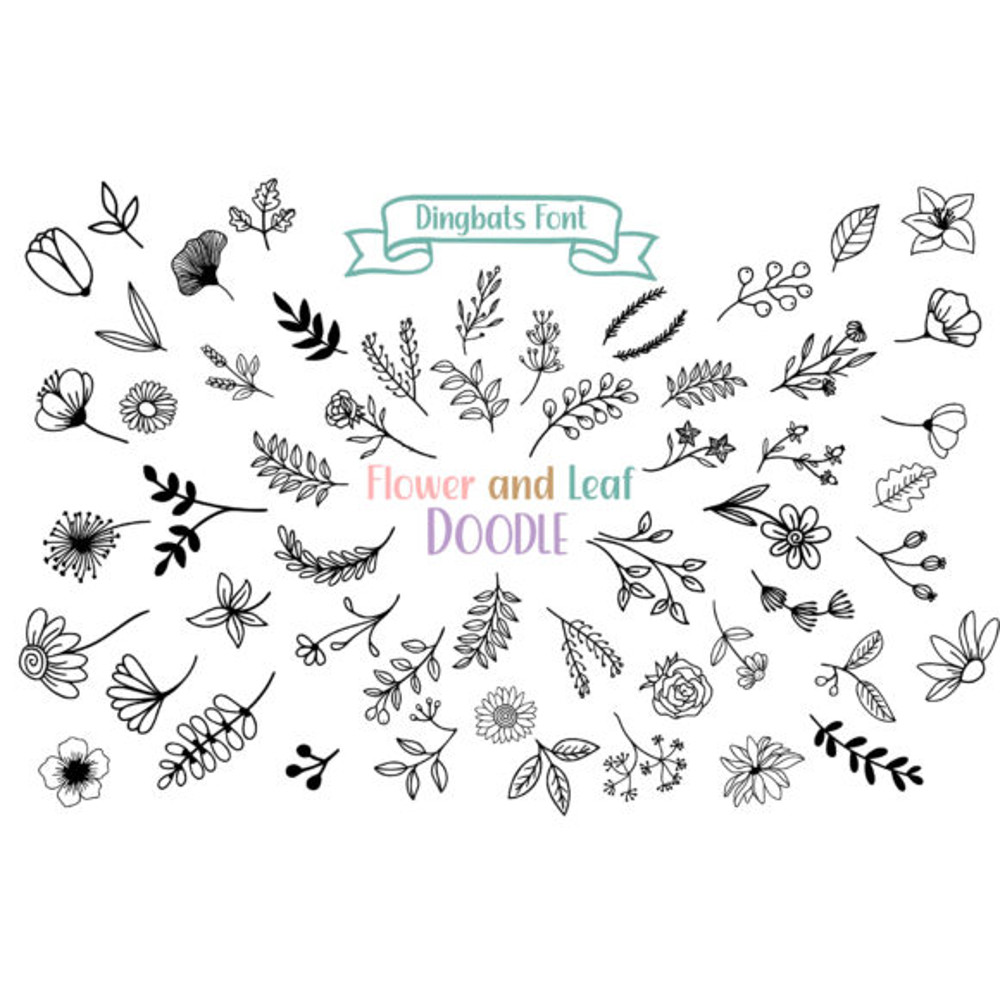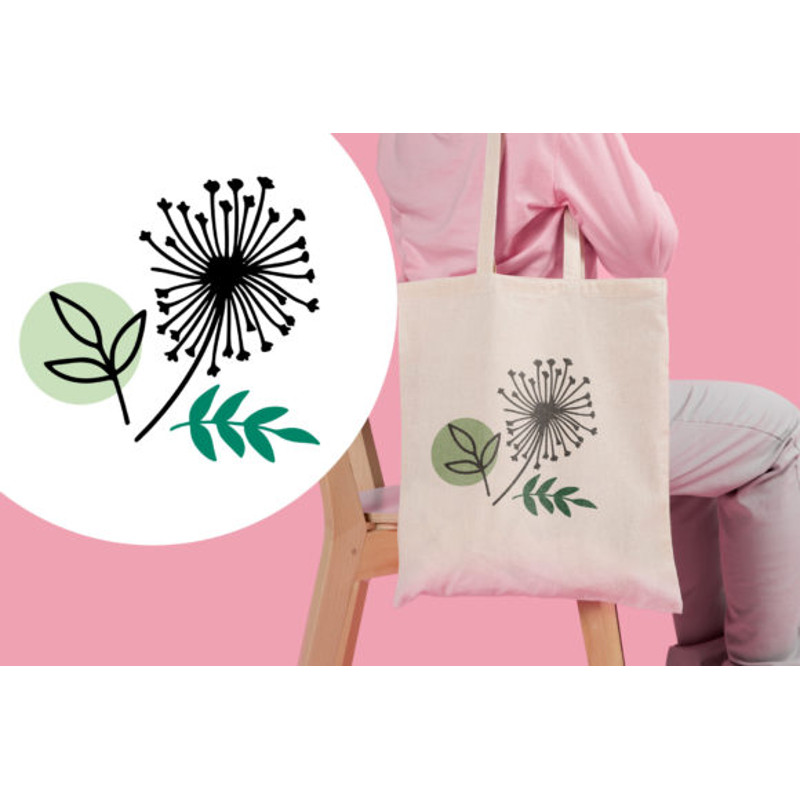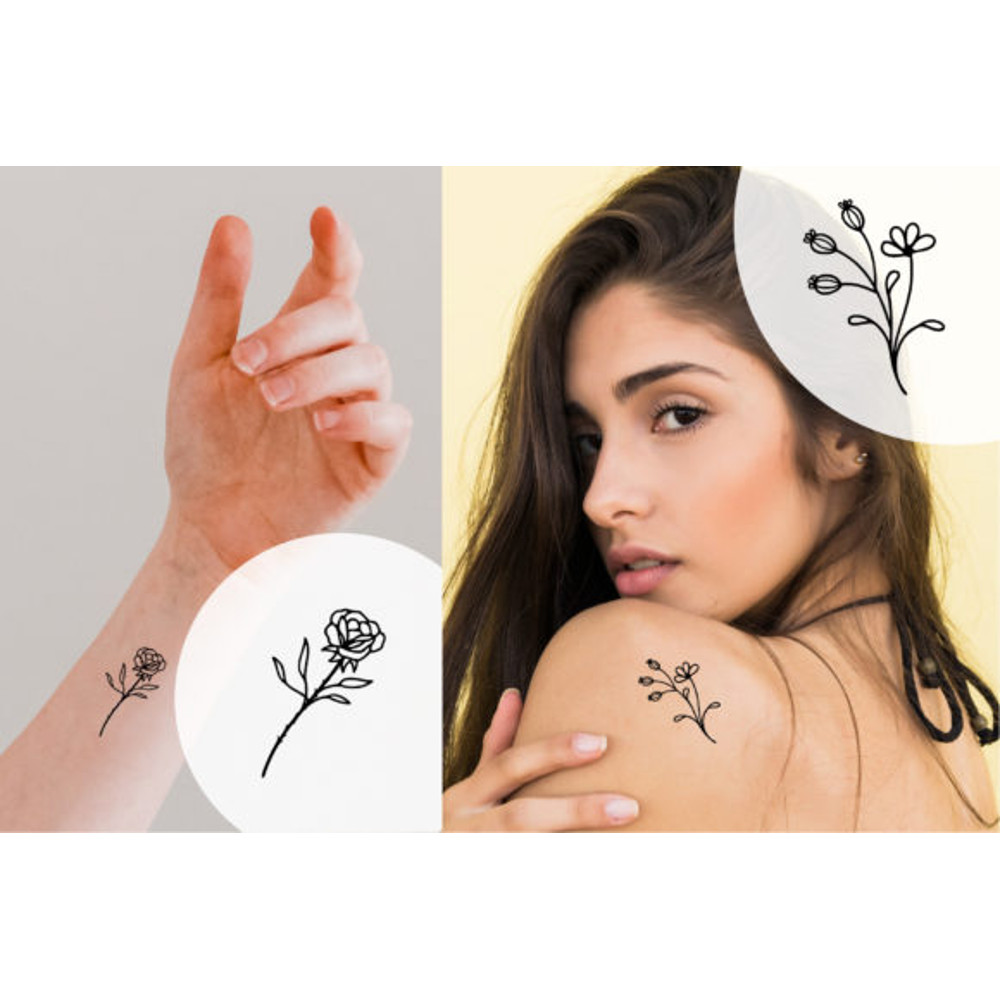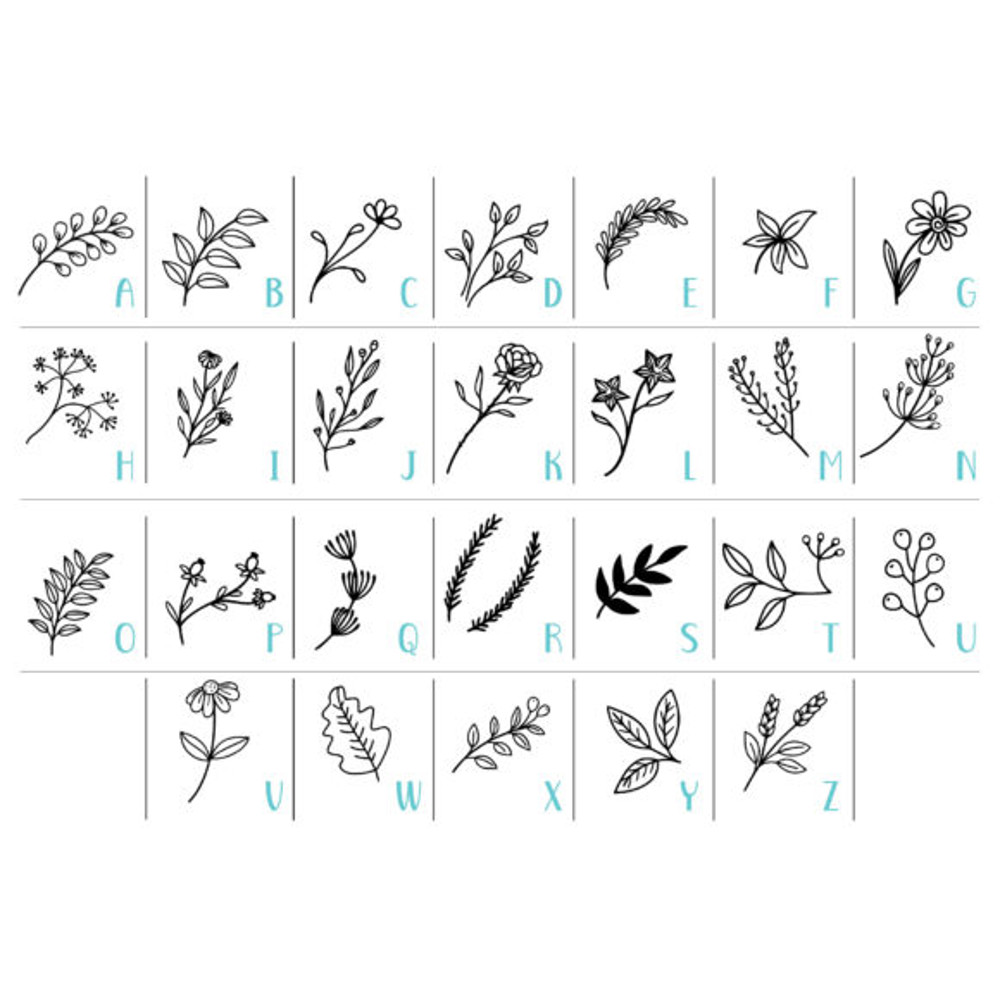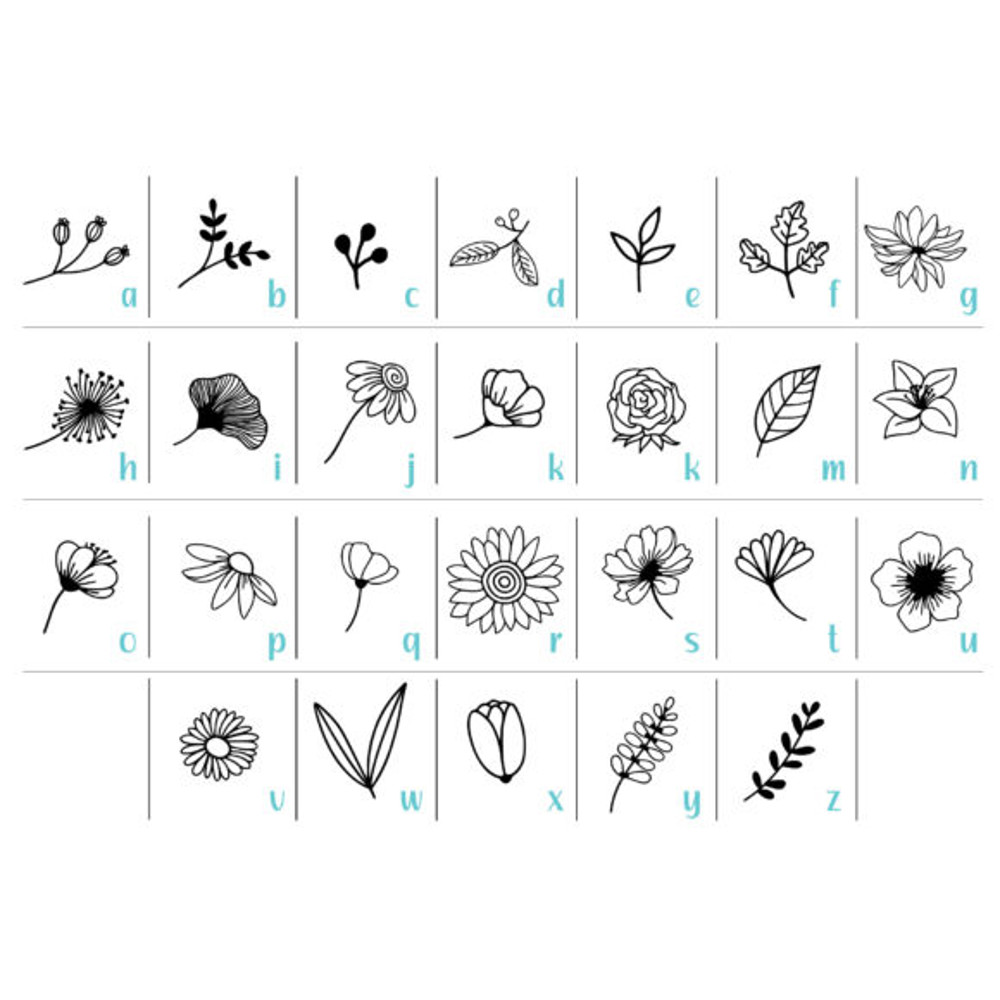
Flower and Leaf Doodle Font
Flower and Leaf Doodle is a useful and delicately designed dingbats font. Add it confidently to your projects, and you will love the results.